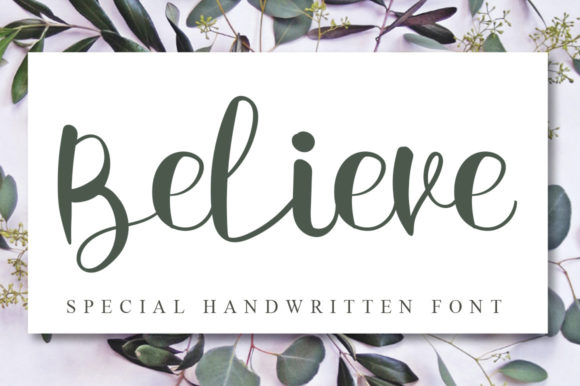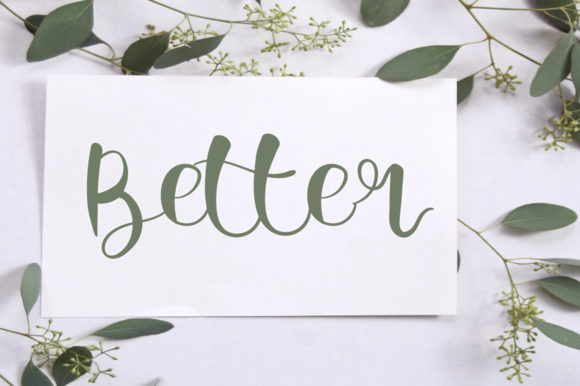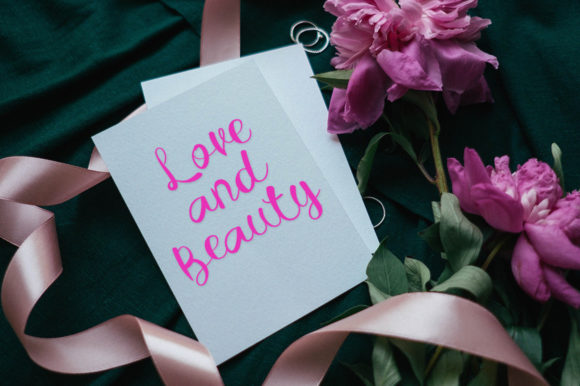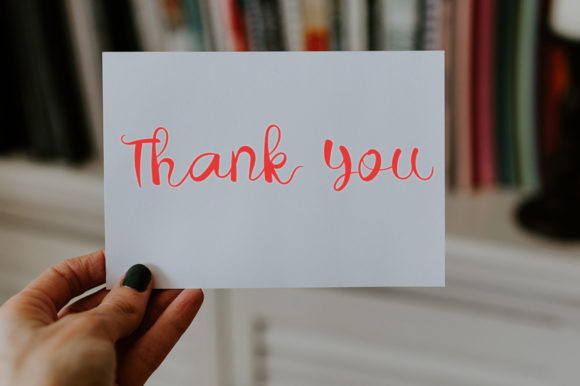
About Believe Font
Believe is a beautiful and attractive handwritten font that exudes a friendly and approachable vibe. With its well-crafted characters and sleek style, this typeface is a perfect choice for a wide range of projects.
The friendly and inviting nature of Believe makes it suitable for various applications. Whether you’re designing birthday cards, invitations, or business cards, this font adds a personal and warm touch to your designs. Its smooth and consistent strokes create a harmonious flow, enhancing the overall aesthetic of your project.
The versatility of Believe allows it to be used in both casual and professional contexts. It can bring a playful and lighthearted feel to your designs, making it ideal for children’s materials, craft projects, or social media graphics. At the same time, its refined and sleek style also lends itself well to more formal applications such as branding, packaging, and logo design.
The legibility of Believe ensures that your message is clear and easily readable, even at smaller sizes. The well-balanced characters and carefully designed letterforms contribute to its overall readability and make it a reliable choice for any text-heavy design.
Whether you’re aiming for a fun and whimsical look or a polished and professional appearance, Believe offers the versatility to adapt to your design needs. Its attractive and friendly character set, combined with its sleek style, makes it a versatile and appealing choice for a variety of projects.
So go ahead and incorporate Believe into your designs, and let its friendly charm and sleek style make your creations shine!